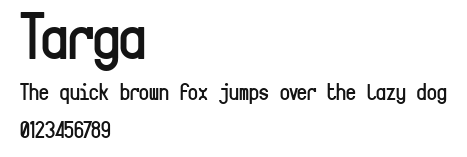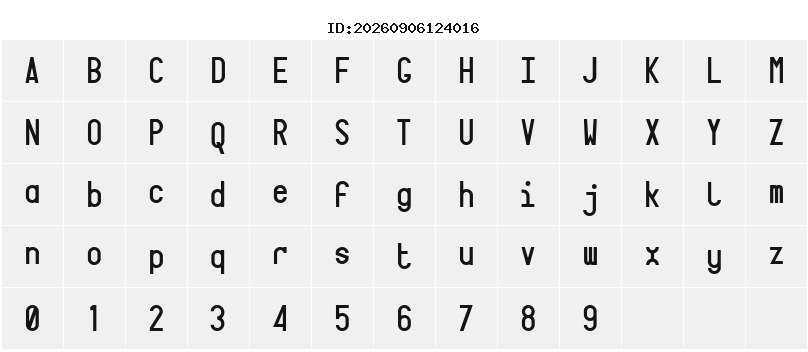
• Font Name: Targa
• Designer: Cosimo Lorenzo Pancini
• Manufacturer: studio kmzero
About Targa .ttf
Targa .ttf is a modern, elegant sans-serif font designed for ultimate readability and visual harmony. Perfect for branding, headlines, web design, and print materials.